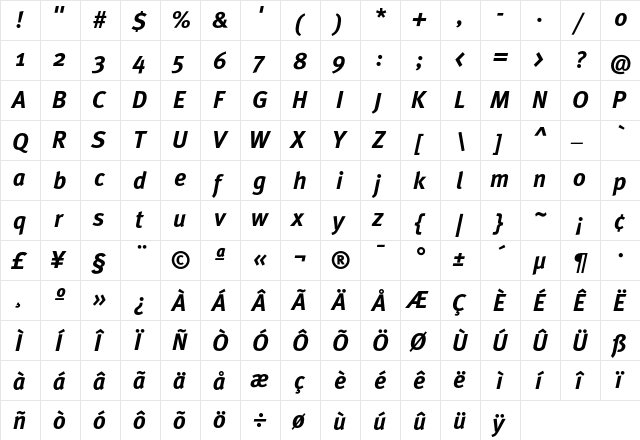
MetaBoldTurk Italic Font Preview
Design Context for MetaBoldTurk Typeface
MetaBoldTurk takes a measured approach to typography — its balanced proportions and neutral character make it a reliable workhorse for both digital and print work. The dynamic lean of this cut emphasises speed and emphasis in any layout. The heavy weight commands attention and anchors typographic hierarchies.